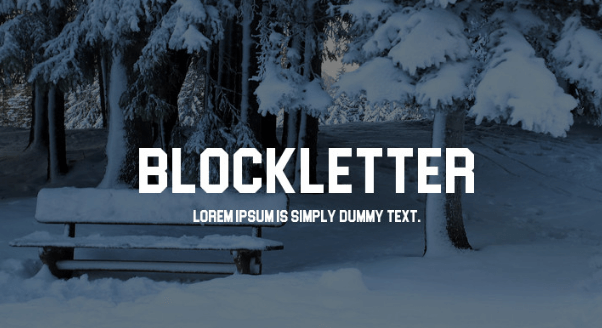
Blockletter Font is a smooth, general sans serif founded on the now-defunct Blockbuster Video logo.
It also resembles the Hollywood signal, army lettering, and sort discovered on collegiate attire. it is an entire overhaul situated on a font I designed years ago.